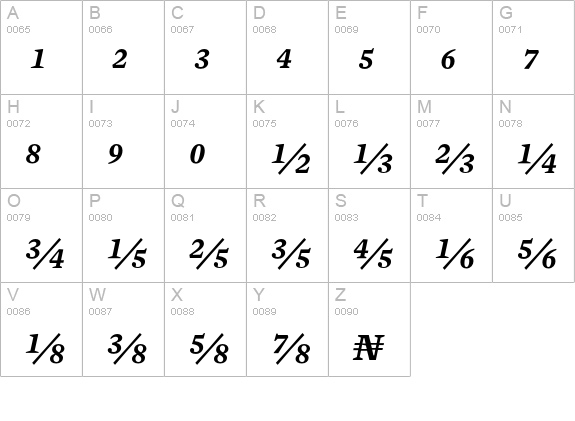
Mercury Numeric G2 Semi Italic Font Details
Mercury Numeric G2 Semi Italic is a distinctive, italic variant in the Mercury typeface family \xE2\x80\x94 well suited to design and typography projects.
Mercury Numeric G2 Semi Italic font is a sleek and modern typeface that exudes elegance and professionalism. Its semi italic style adds a touch of sophistication, making it perfect for a wide range of design projects. This versatile font is ideal for both digital and print applications, from websites and social media graphics to marketing materials and print publications. What sets Mercury Numeric G2 Semi Italic font apart is not only its aesthetic appeal but also its functionality. The clean lines and balanced proportions make it highly legible, ensuring that your message is conveyed clearly and effectively. Whether you're designing a logo, creating a presentation, or crafting a poster, this font will elevate your project to the next level. Best of all, Mercury Numeric G2 Semi Italic font is available for free download at FontsMarket.com. This means you can access this premium font without any cost, making it a valuable addition to your design toolkit. Don't miss out on the opportunity to enhance your projects with this stylish and versatile font – download Mercury Numeric G2 Semi Italic today and take your designs to new heights!